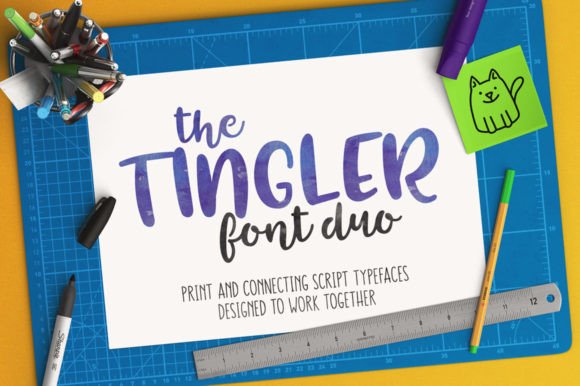
Introducing the Tingler Duo Font, a dynamic script font family designed by GeekMissy! This package includes two typefaces that work together seamlessly: Tingler Script, a connecting handwritten script typeface, and Tingler Print, a printed handwritten script typeface.
Crafted with passion and creativity, the Tingler duo was built to meet the needs of both graphic designers and crafters alike. The lowercase letters in Tingler Print are specifically designed to accommodate the connecting tails from Tingler Script. This unique feature allows the two fonts to blend together beautifully, creating an elegant and sophisticated look.
One of the standout features of the Tingler duo is the lack of closed counters in either typeface. This feature makes the Tingler duo the perfect choice for stencils and electronic cutting machines, giving you endless possibilities to create stunning and intricate designs.
But that's not all - the Tingler duo also supports over 200 accented characters, including English, French, Spanish, German, Polish, Romanian, Portuguese, Swedish, Finnish, Norwegian, Danish, Esperanto, Czech, Dutch, Welsh, Filipino, Turkish, and more! Plus, with staggered double-letter ligatures, you can achieve a hand-drawn look with ease.
Overall, the Tingler Duo Font is a must-have for anyone looking to elevate their designs and take their projects to the next level. With its unique features, seamless integration, and extensive character support, the Tingler Duo Font is sure to impress.